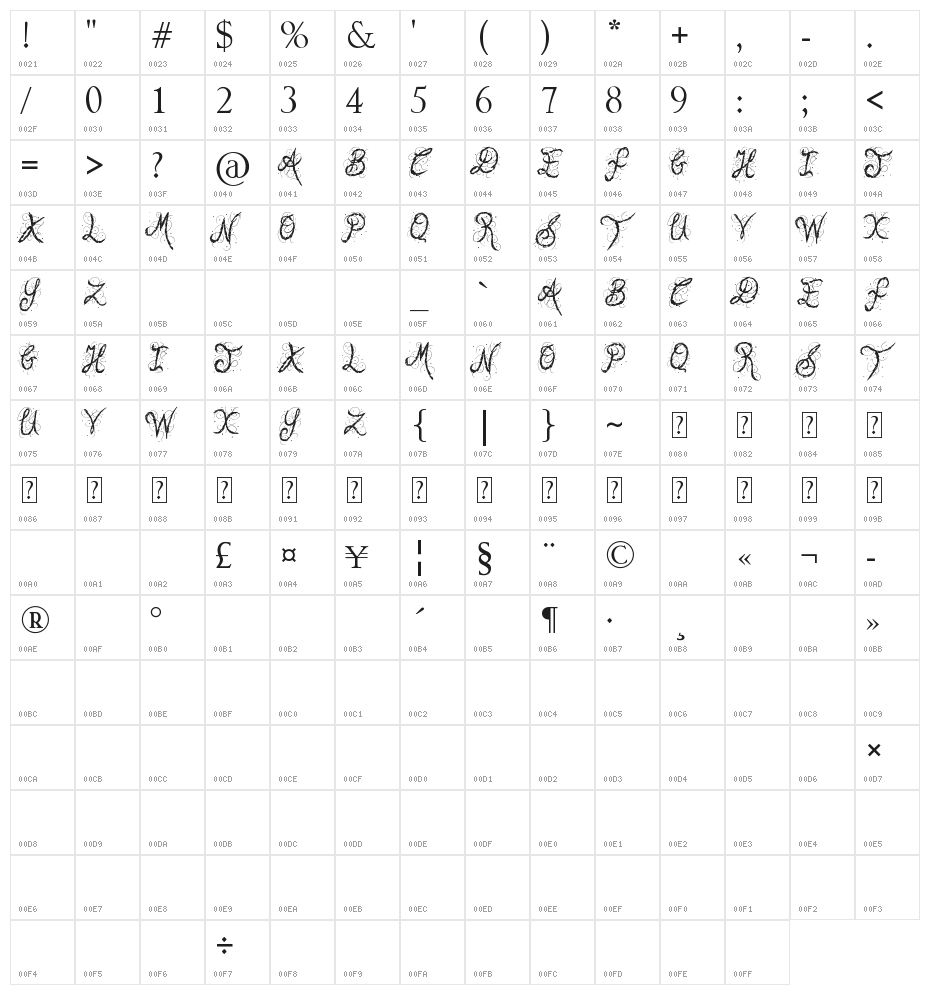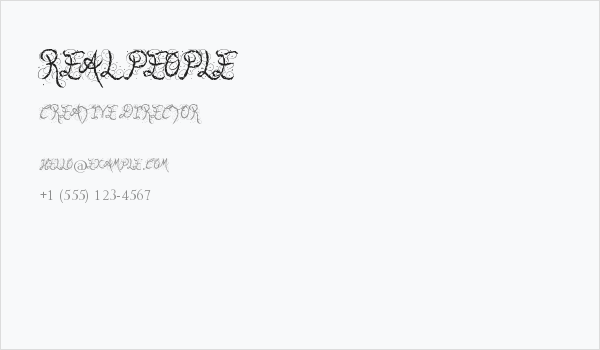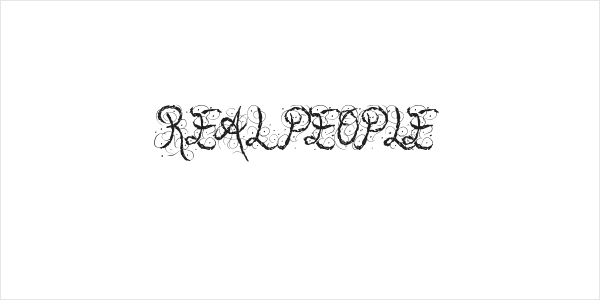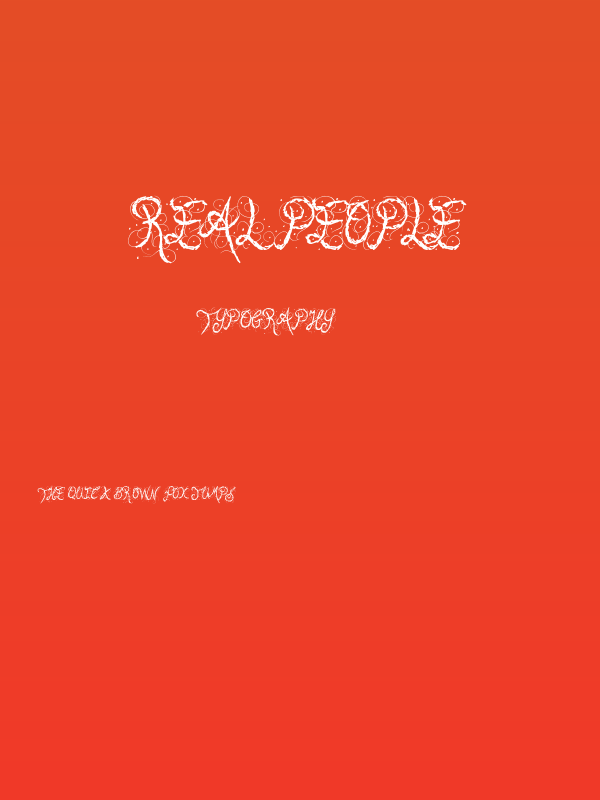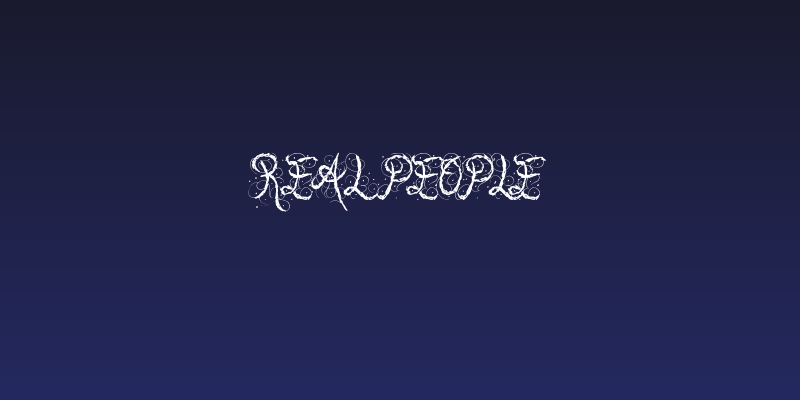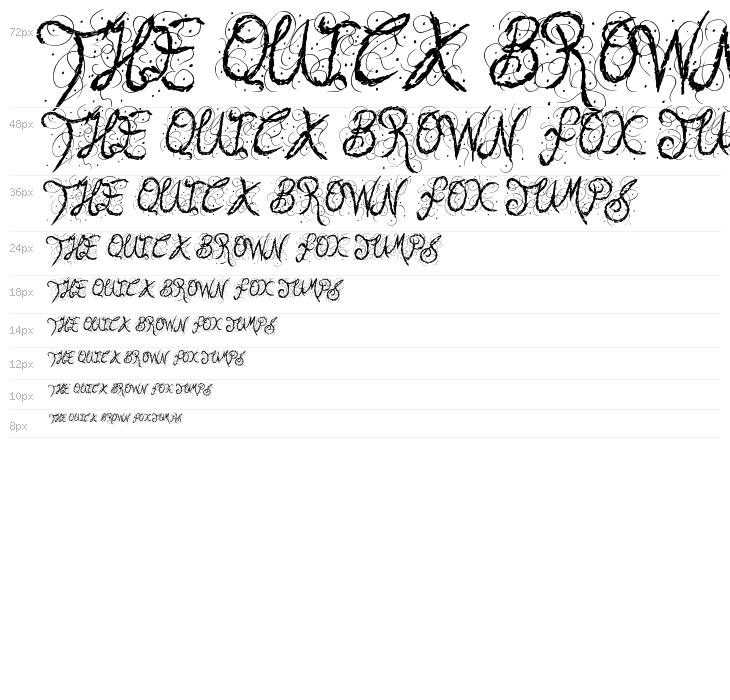
Real People Font
Real People Description
This font is an intricate and highly decorative script style, characterized by elaborate swirls and flourishes that extend from each letter. The uppercase letters are particularly ornate, with loops and curls that give a sense of elegance and sophistication. The lowercase letters maintain this decorative style, ensuring consistency throughout the typeface. The numerals are more straightforward but still carry a hint of the decorative elements seen in the letters. Special characters are included, matching the overall aesthetic. This font is ideal for projects that require a touch of luxury and artistic flair.
Use CaseLogos, Invitations, Decorative headings
Proposed ProjectsWedding invitations, luxury branding, artistic posters, and decorative book covers.